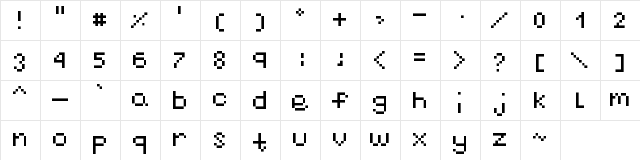
super cat font Regular
Design Context for super cat font Typeface
super cat font offers clean, dependable letterforms without strong stylistic allegiance, making it a practical choice for designers who need flexibility.